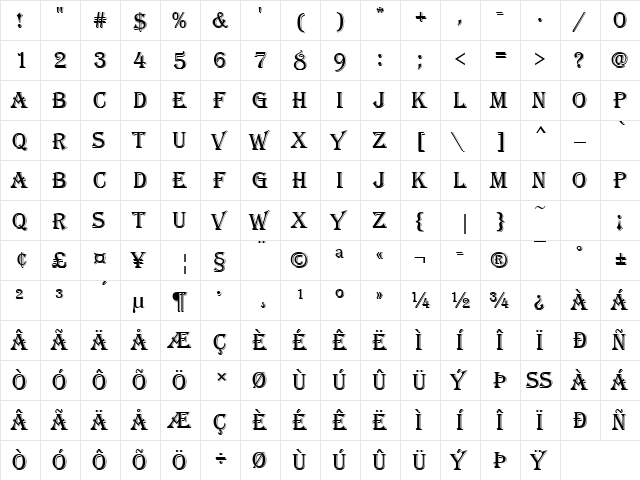
Algerian Becker Regular
Design Context for Algerian Becker Typeface
Algerian Becker takes a measured approach to typography — its balanced proportions and neutral character make it a reliable workhorse for both digital and print work.